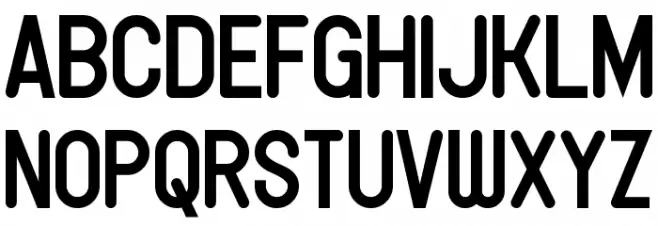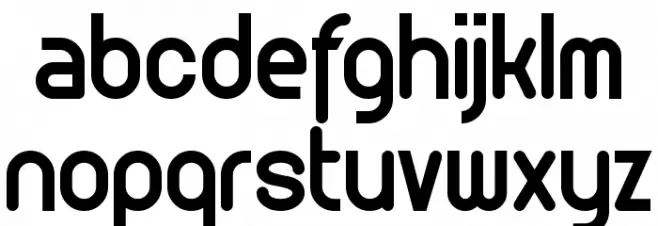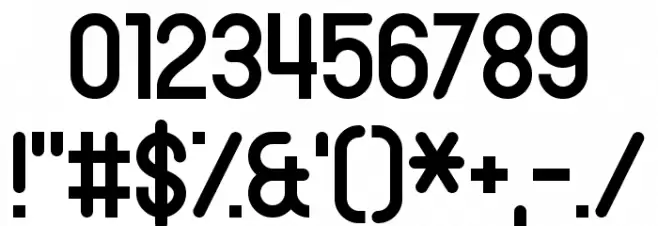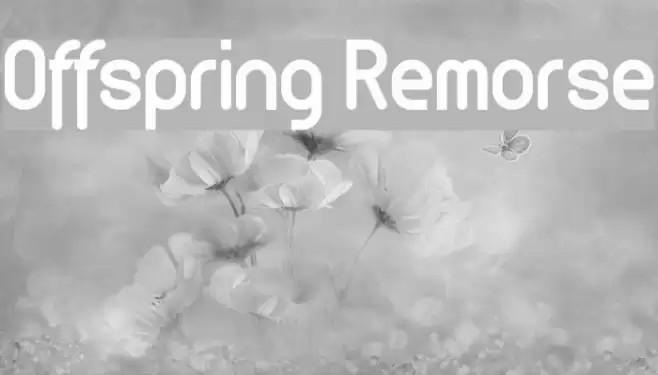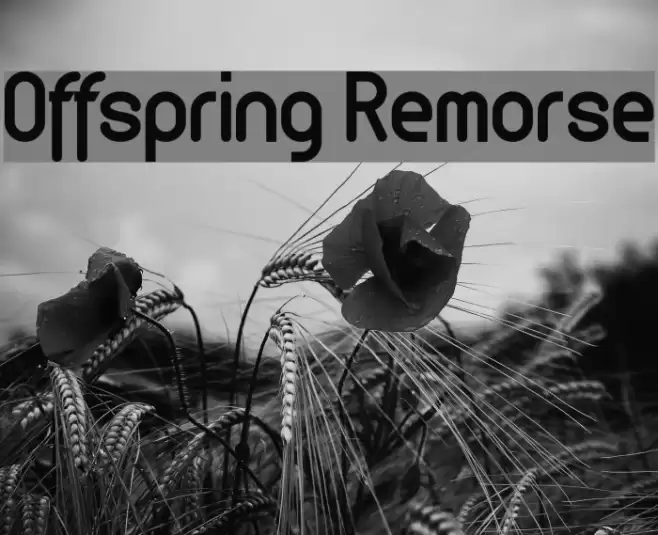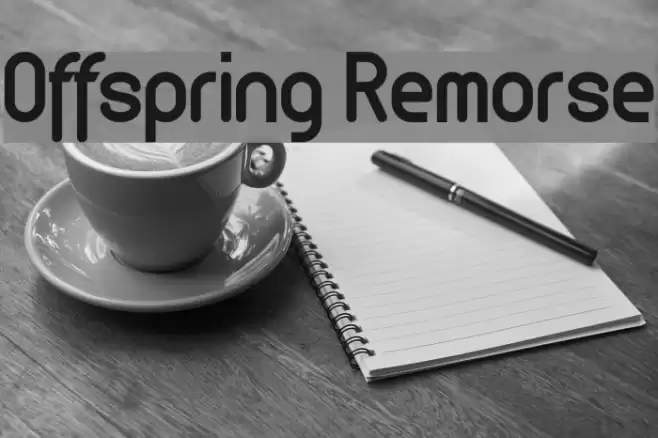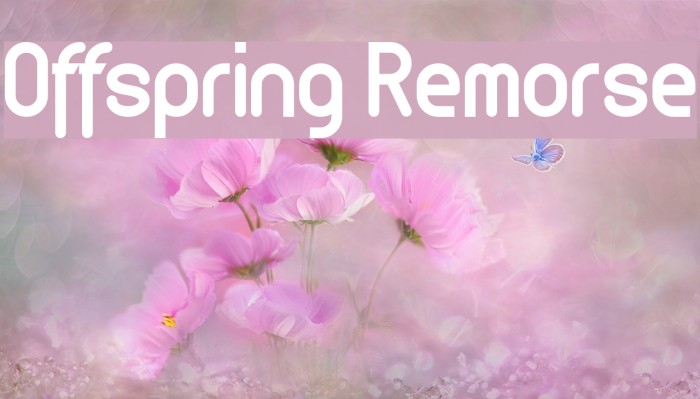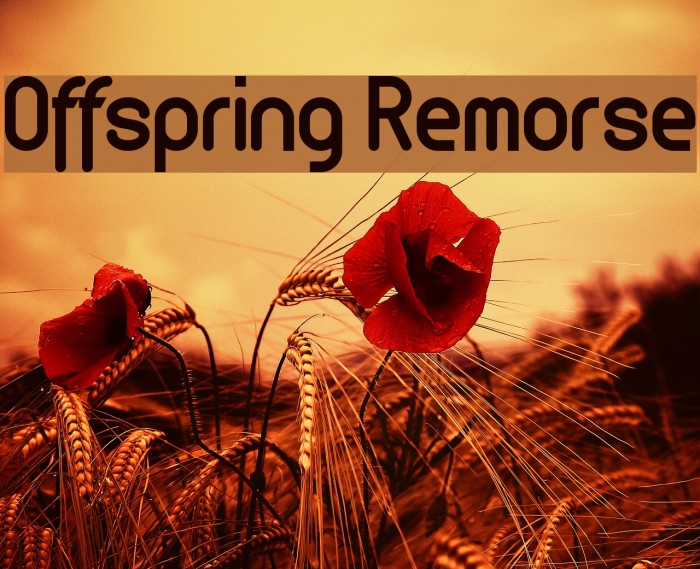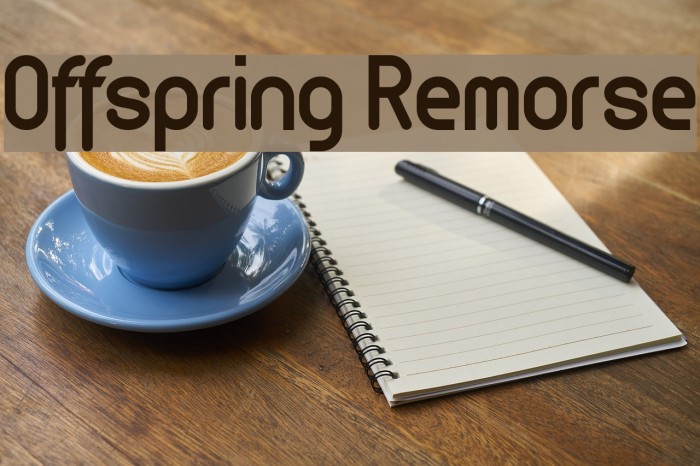
Offspring Remorse
This font features a clean and modern sans-serif style with rounded edges, giving it a friendly and approachable appearance. The characters are evenly spaced, providing a balanced and harmonious look. The uppercase letters are bold and prominent, while the lowercase letters maintain a consistent weight, ensuring readability. The numerals are clear and distinct, making them suitable for various applications. Special characters are well-defined, adding versatility to the font. Its overall design is sleek and contemporary, making it ideal for digital and print media.
A modern, rounded sans-serif font with a clean and approachable style.
- Proposed Projects: Ideal for branding, web design, advertising, and user interfaces due to its clarity and modern appeal.